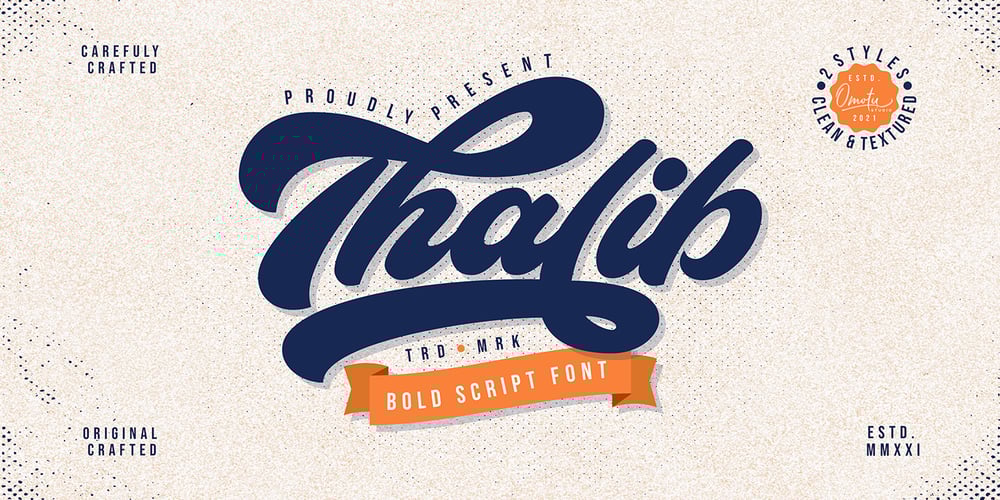
Thalib Font Family was designed by Ibnu Utomo and published by Omotu. Thalib contains 2 styles and family package options. Thalib is an elegant bold script font with retro look. Comes with 2 styles, clean and textured. Suitable for logotype, branding, packaging design, poster design, website/display, editorial, headline, advertising, and more.Whats Include? Opentype support Multilingual support PUA encoded Features: Uppercase, lowercase, numerals, punctuations, alternates, contextual alternates, and stylistic sets Accessible in the Adobe Illustrator Glyphs panel, or under Stylistic Alternates in the Adobe Photoshop OpenType menu, Adobe InDesign, Corel Draw, even work on Microsoft Word